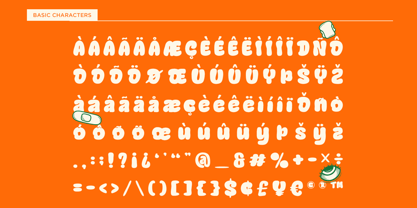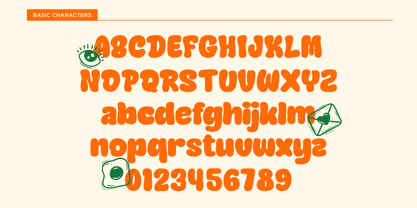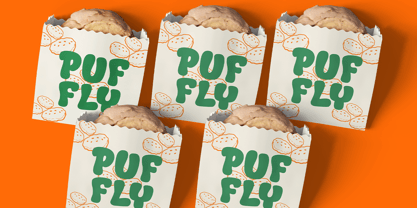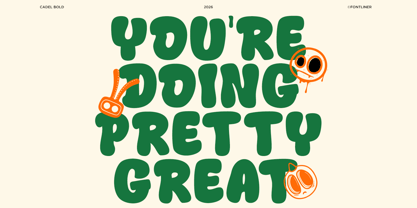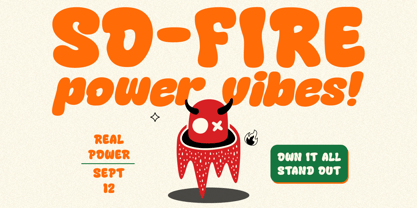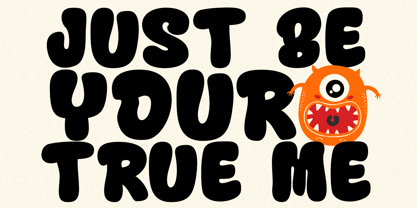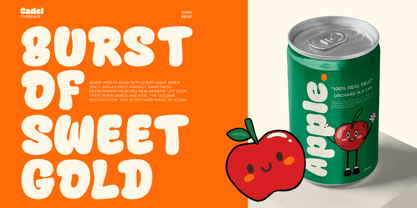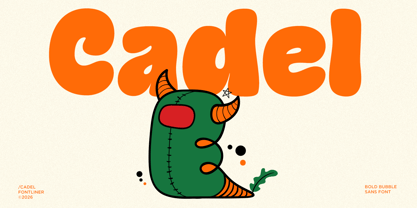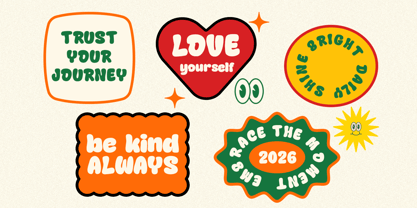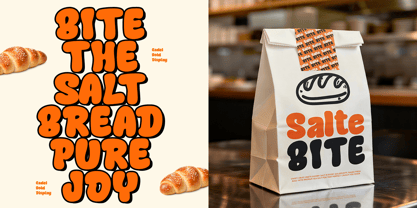
Cadel
Cadel is a playful bubble display font designed to bring joy, energy, and personality to every creative project. With its chunky letterforms, rounded curves, and cheerful character, Cadel is perfect for designs that need a bold, friendly, and eye-catching appearance.
Whether you're creating branding for food products, snack packaging, children's books, stickers, posters, social media graphics, merchandise, logos, or playful advertising, Cadel delivers a fun visual impact while remaining highly readable. Its handcrafted style makes every word feel expressive, warm, and full of character.
Packed with uppercase, lowercase, numerals, punctuation, multilingual support, and OpenType features, Cadel is a versatile display font for designers looking to create memorable and colorful typography.
• Regular and Italic
• Uppercase and Lowercase
• Number, Symbol, and Punctuation
• Multi Language Support